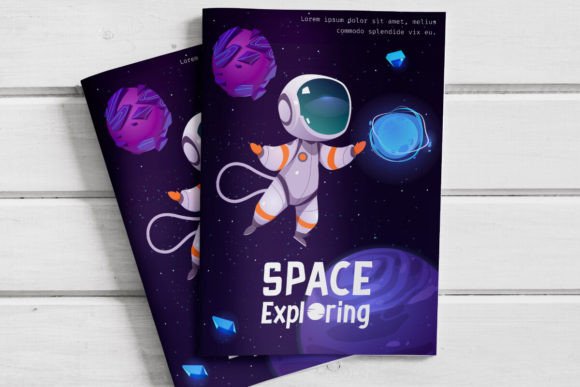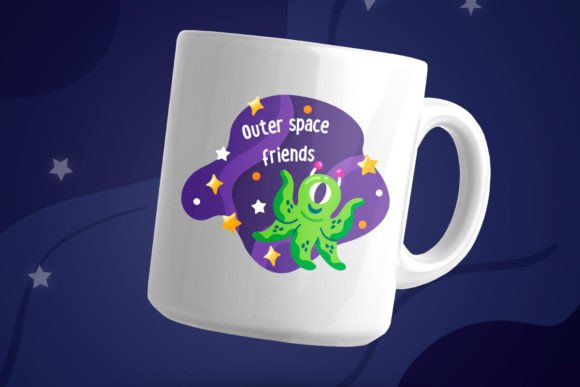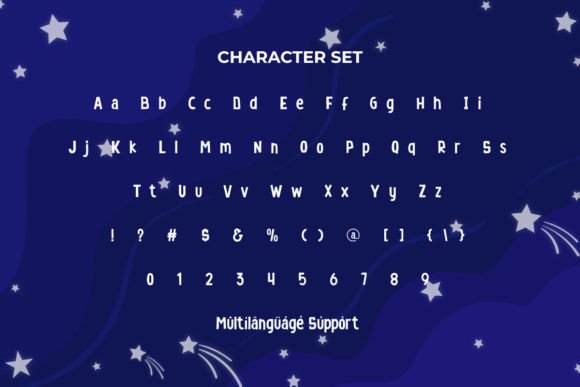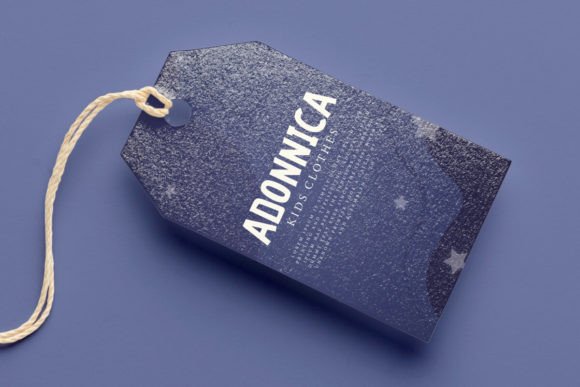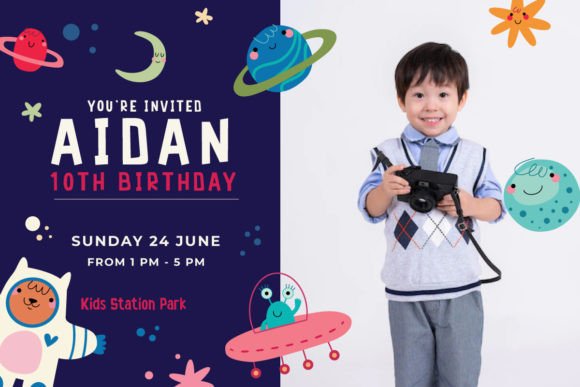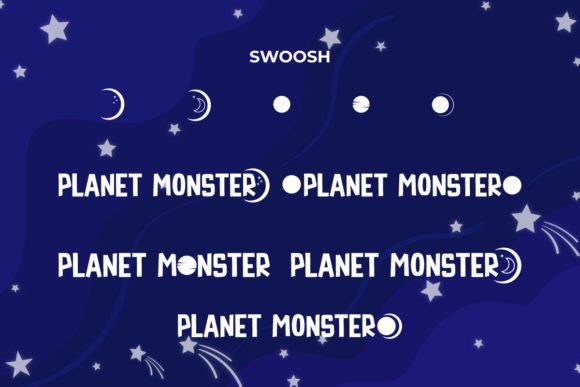
Introduction to Planet Monster Font
Have you ever found yourself in a creative rut, staring at a blank canvas or screen, searching for that one spark to ignite your next big project? For designers, this moment can be especially frustrating. But what if I told you that the key to unlocking your full creative potential lies in a simple, yet powerful tool: the Planet Monster Font?
This free, high-quality font is a game-changer for designers of all levels, offering a unique and playful aesthetic that’s perfect for adding a touch of whimsy to your next design project. With its transparent background and versatile design, the Planet Monster Font is an essential resource for any creative endeavor, from business cards and catalogs to custom designs and product packaging.
Whether you’re a seasoned pro or just starting out, the Planet Monster Font is an invaluable asset that’s sure to elevate your work and take your designs to the next level.
Key Features of Planet Monster Font
- Supports a wide range of languages, making it a versatile design resource
- Features a unique, bold design that’s perfect for adding a touch of personality to any creative project
Honest Review: Planet Monster Font
I recently stumbled upon the Planet Monster Font while searching for a unique design resource for my next creative project. The font’s quirky and playful vibe immediately caught my attention, and I was excited to dive deeper.
One of the things that works well with this font is its versatility. It’s suitable for a wide range of design applications, from digital graphics to print materials. The high quality of the font is also impressive, with clear and crisp lines that make it easy to read. ✨ The font’s transparent background is another great feature, allowing for seamless integration with other design elements.
Here are some of the key features that I liked about the Planet Monster Font:
- Unique and playful design
- High quality and clear lines
However, there are a few limitations to consider. The font may not be suitable for formal or professional projects, as its quirky nature may not convey the desired level of sophistication. Additionally, some users may find the font’s irregularities to be distracting or difficult to read. ⚠️
Overall, I’m impressed with the Planet Monster Font and its potential for creative projects. While it may have its limitations, it’s definitely a great addition to any designer’s toolkit. With its unique design and high quality, it’s sure to add a touch of personality to any design.
The Planet Monster Font is perfect for creative projects that require a bold, eye-catching font. Common use cases include:
- Posters